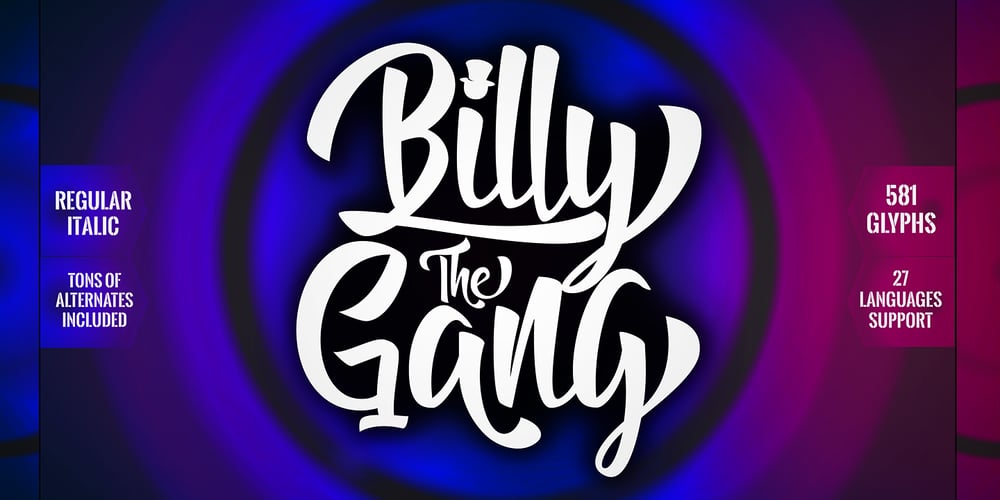
Billy The Gang Font Family was designed by Anton Cahyono and published by Motokiwo. Billy The Gang contains 2 styles and family package options. Billy The Gang is a stylish handmade font. Inspired by my logotype project I made this font to be suitable for various design projects. Billy The Gang has 582 glyphs include a lot of alternates and swashes, also has 27 languages support. Features: – Uppercase & Lowercase – Numerals & Punctuation – Ligatures – Stylistic alternates for all uppercase and lowercase – Swashes for all uppercase and lowercase – Contextual Alternates for all lowercase – Stylistic sets (SS01 and SS02) for all lowercase – PUA Encoded Characters : If you don’t have programs that support OpenType Features, don’t worry you can access the alternate glyph via Font Book (Mac user) or Windows Character Map (Windows user) – Multilingual Support Supported Languages: Afrikaans, Albanian, Catalan, Croatian, Czech, Danish, Dutch, English, Estonian, Finnish, French, German, Hungarian, Icelandic, Italian, Latvian, Lithuanian, Maltese, Norwegian, Polish, Portugese, Slovak, Slovenian, Spanish, Swedish, Turkish, Zulu.